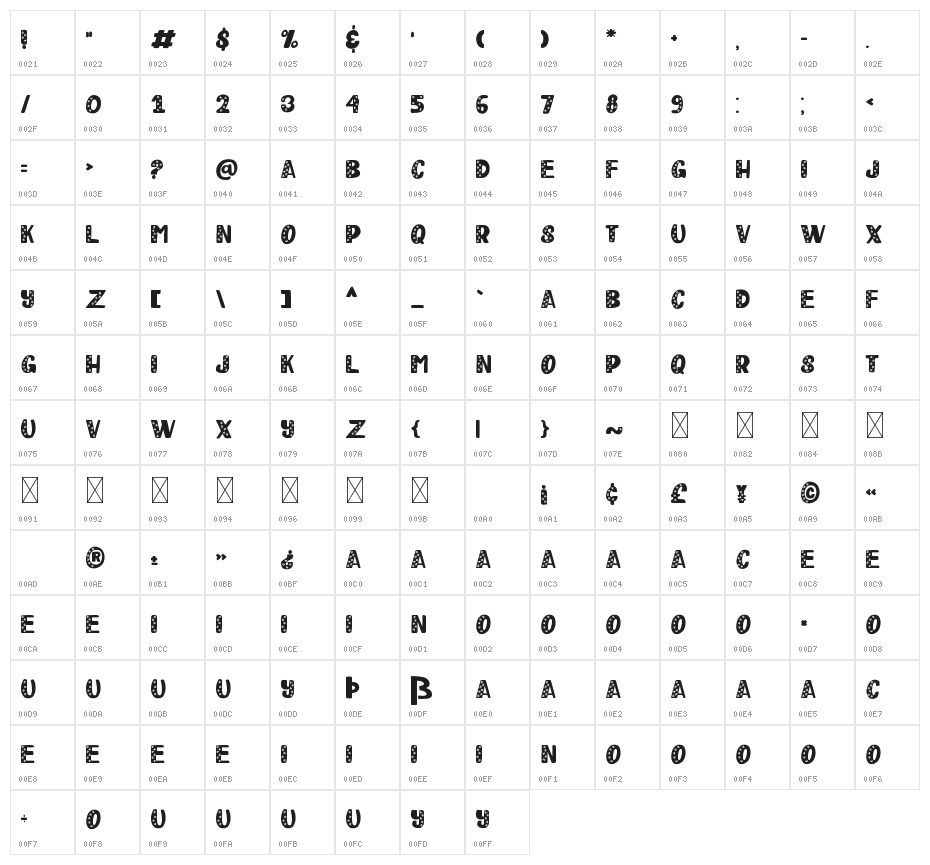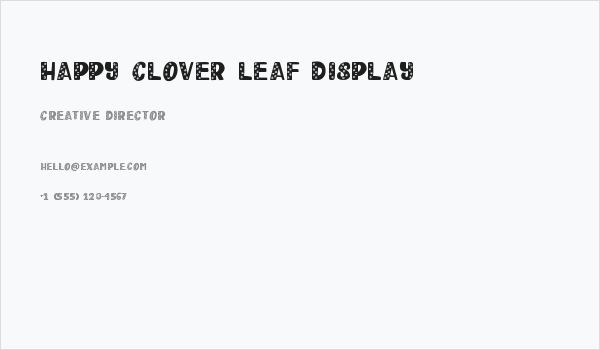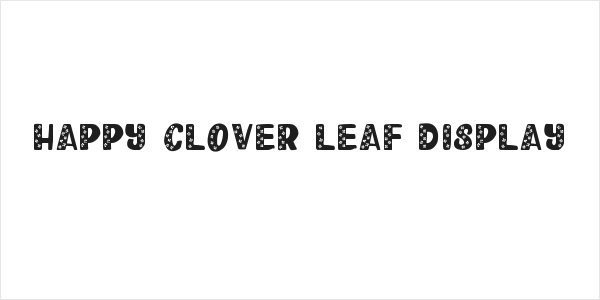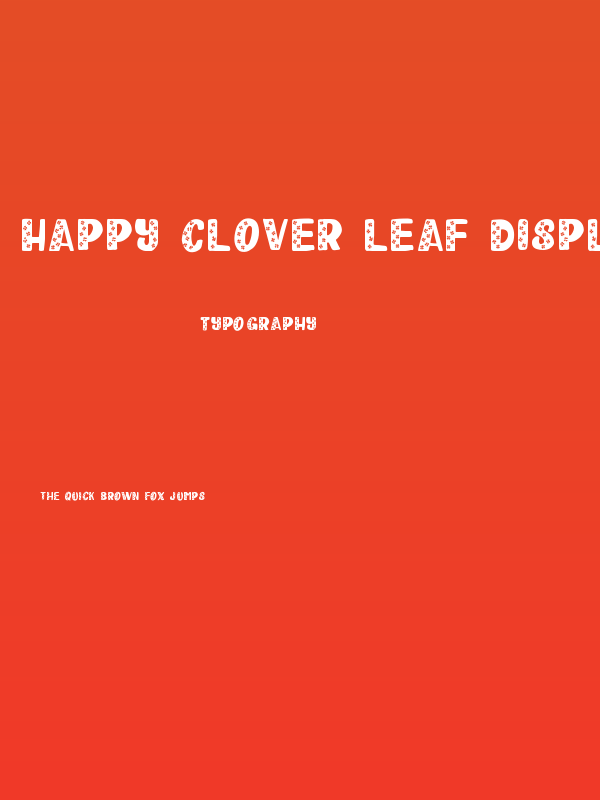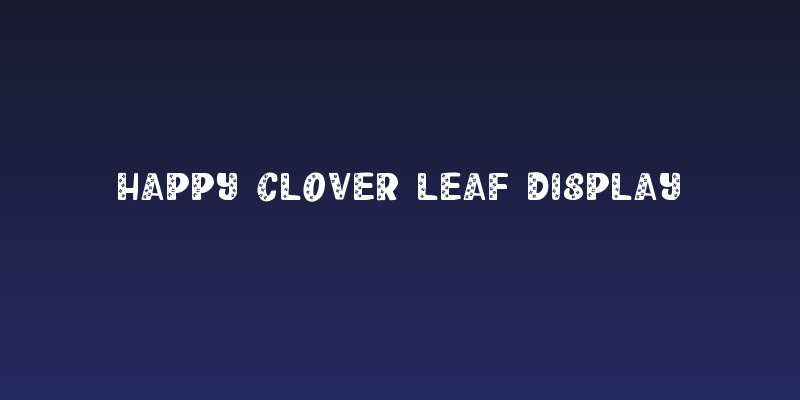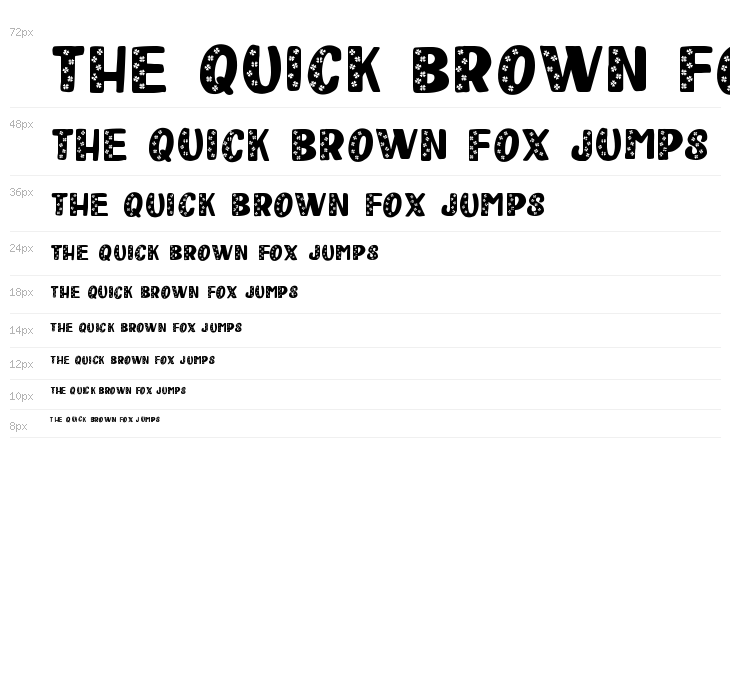
Happy Clover Leaf Display Font
Happy Clover Leaf Display Description
This playful and decorative font features a unique design with clover leaf patterns embedded within each character. The bold, rounded letters are filled with small, whimsical clovers, giving it a festive and cheerful appearance. The font maintains a consistent weight throughout, with a slightly condensed width that enhances its playful nature. The characters are well-spaced, ensuring readability while maintaining the decorative elements. This font is perfect for projects that require a touch of fun and creativity, such as holiday-themed designs, children's books, or playful branding materials.
| Proposed Projects | Ideal for holiday cards, children's book covers, playful branding, and festive event invitations. |